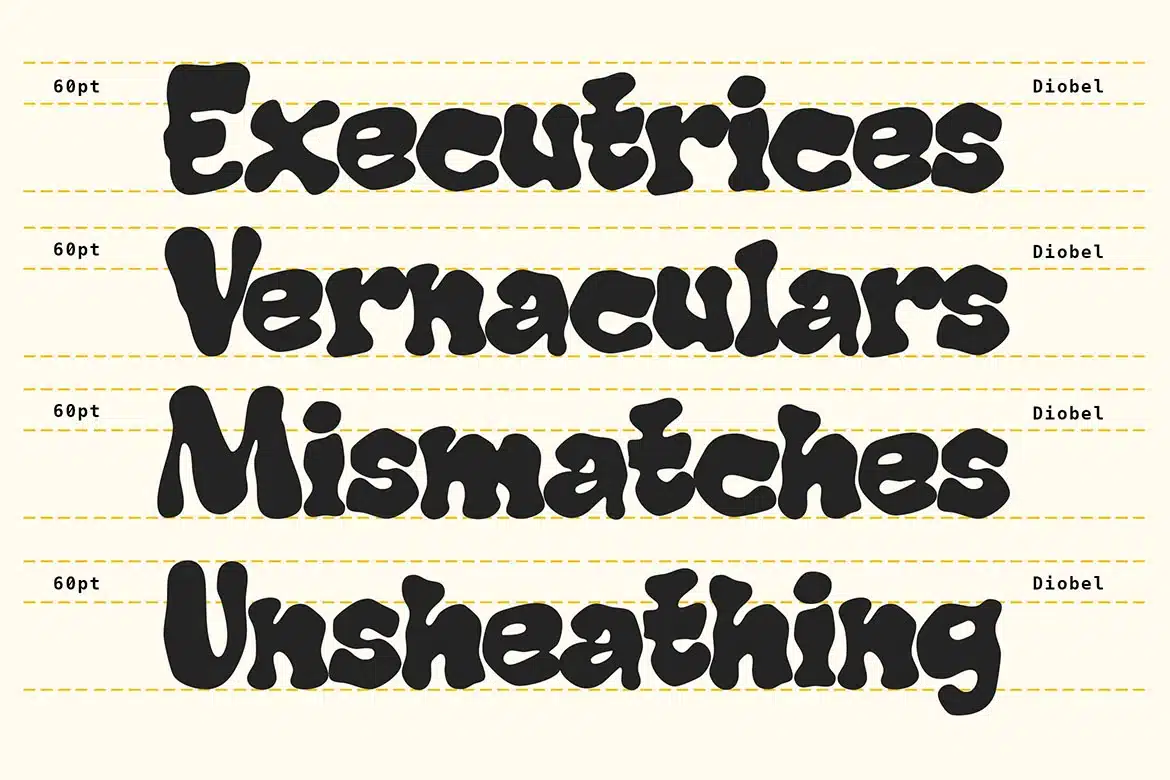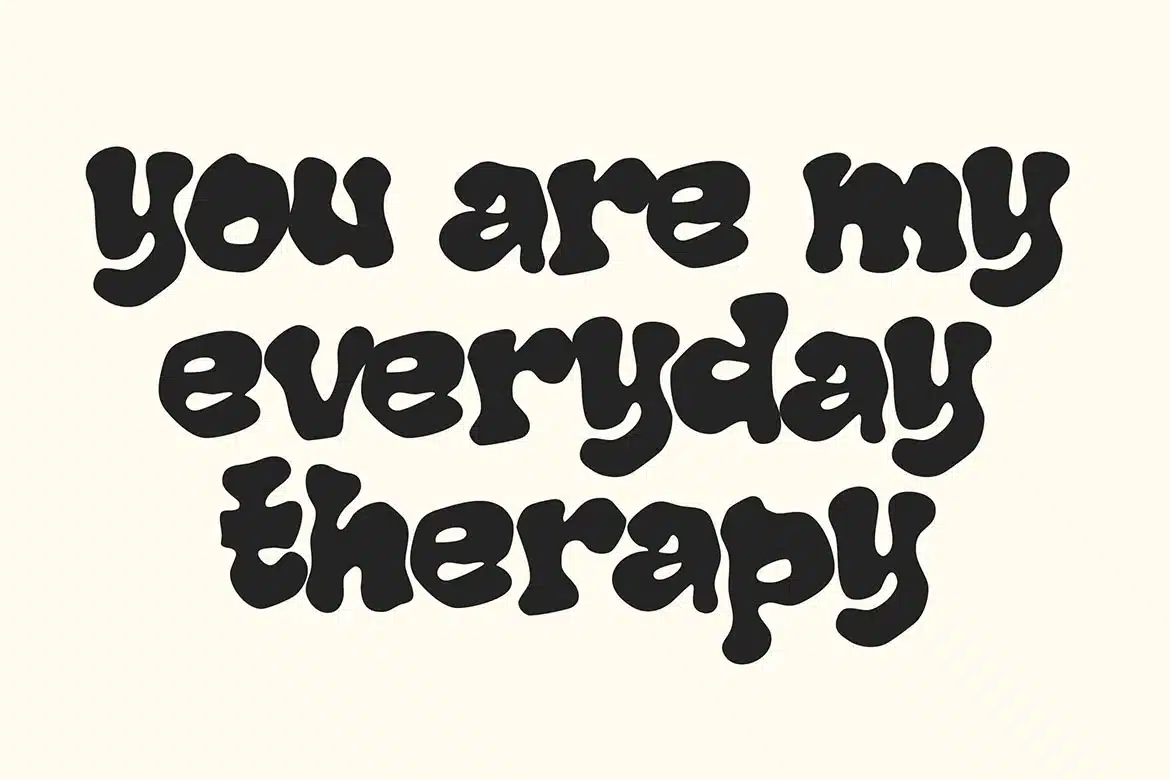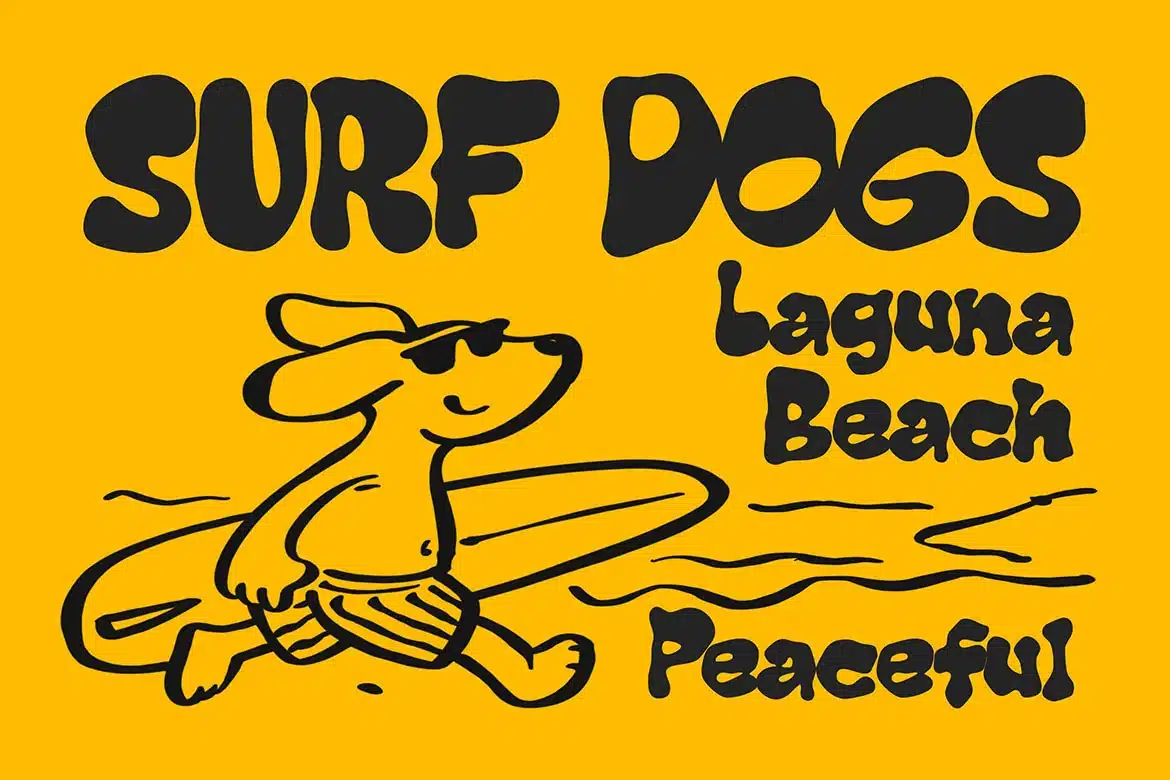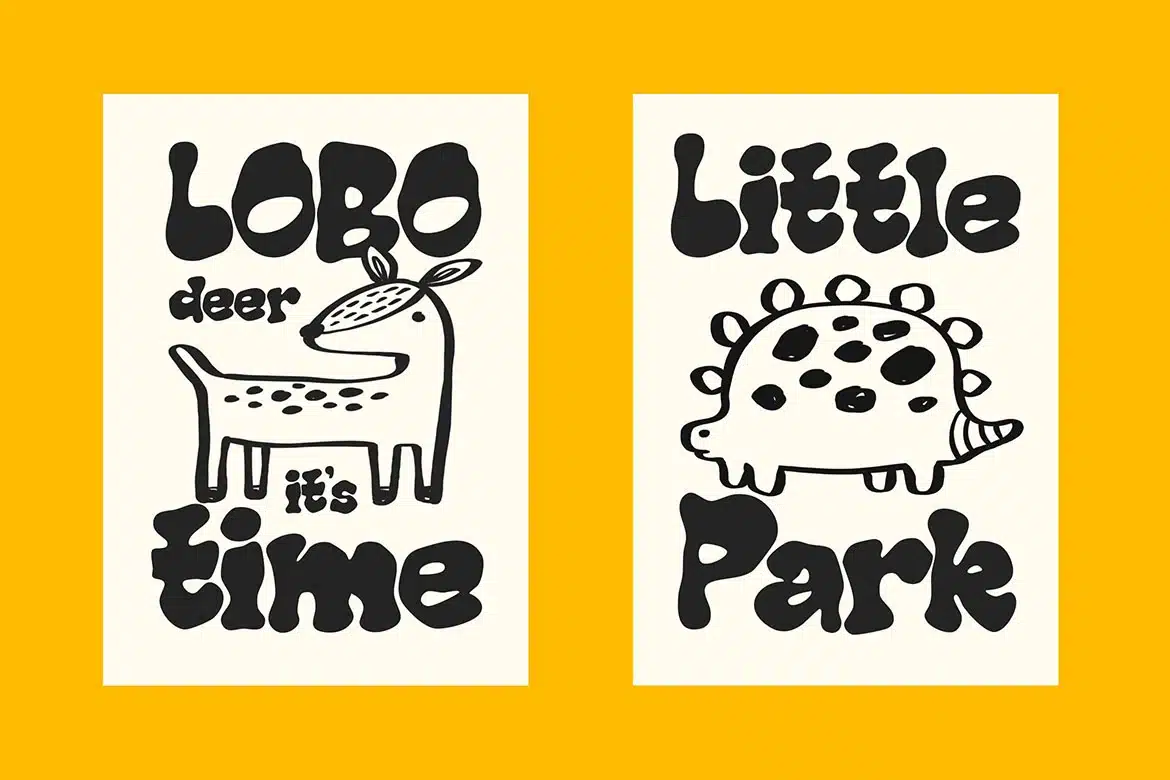
Diobel – Playful Liquify Display Font
Meet Diobel, a playful display font full of personality and charm!
Designed to grab attention instantly, this font brings a fun, friendly, and expressive vibe to any design.
Diobel features rounded, soft, and liquified letterforms that feel organic and lively. Every word looks bold, cute, and full of character — perfect for designs that need to stand out in a fun way.
Diobel was crafted for modern creatives who want typography that feels bold, cheerful, and approachable without losing readability. Its thick and unique shapes make it perfect for headlines and large display text.
Perfect for:
- Logos & playful branding
- Posters and event flyers
- Food & beverage packaging
- Kids products & merchandise
- Social media graphics
- Quotes and typography artwork
- YouTube thumbnails & podcast covers
If your design needs to look friendly, cute, bold, and eye-catching, Diobel is the perfect match.